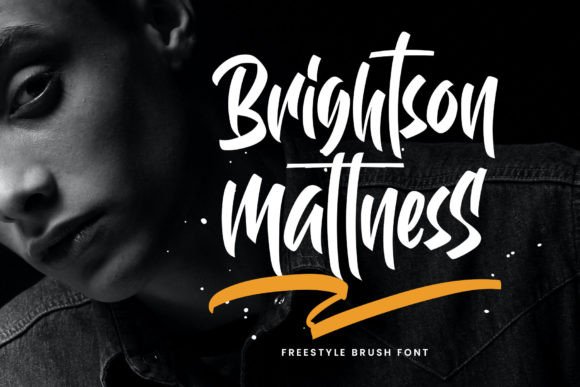
Meet Brightson Mattness: A Brush Font That's Full of Life and Vitality!
In a world of ordinary typefaces, Brightson Mattness stands out as a breath of fresh air. This exhilarating freestyle brush font is a dynamic and playful masterpiece that injects a surge of energy into anything it touches. Unleash your creativity and let your designs dance with this lively font!
Brightson Mattness isn't just a font; it's an experience. Its energetic strokes bring your projects to life, whether it's eye-catching posters, bold logos, dynamic motion graphics, or unique packaging. Feel the pulse of its vibrancy as it transforms your words into works of art.
But wait, there's more to Brightson Mattness than meets the eye. This font is packed with an arsenal of special characters and swashes, giving you the power to add a unique touch of personality to your designs. Experiment with different combinations to create messages that pop and leave a lasting impression.
From the striking posters that demand attention to the eye-catching logos that command respect, Brightson Mattness is the perfect font to capture the essence of your brand. Its versatility knows no bounds, making it a must-have for designers, artists, and anyone who wants to make a statement.
With Brightson Mattness, you can turn your creative visions into reality. Its bold and energetic strokes will add a touch of excitement to your designs, leaving your audience captivated and inspired. Embrace the power of this freestyle brush font and let your imagination soar!